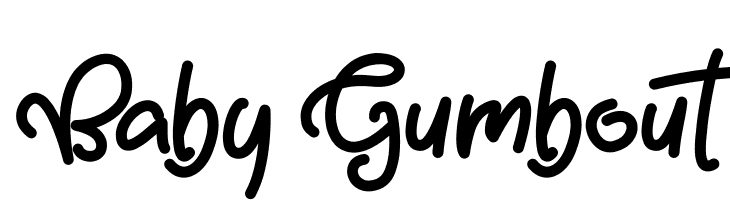
( London's Letters - www.londonsletters.com/ )
A whimsical decorative font with pony illustrations embedded in each letter.
( London's Letters - www.londonsletters.com/ )
A whimsical font with letters integrated into baby pram designs.
( Nght's Place - www.crosswinds.net/~nghtmvs/font/fonts1.html )
A decorative font with characters embedded in grand piano silhouettes, ideal for music-themed designs.
( Fonts by Brixdee )
A playful, stitched-style font with bold, rounded characters and a dotted pattern.
( Fonts by Royaltype )
A playful, bold font with rounded, thick strokes and a hand-drawn feel.
( Fonts by Khurasan )
A bold, jagged font with a playful and energetic style.
( Fonts by Khurasan )
A playful, hand-drawn font with rounded edges and a whimsical style.
( Fonts by Khurasan )
A playful, hand-drawn font with bold, rounded characters and a whimsical style.
( Fonts by Bangkit Tri Setiadi )
A playful, bold, and rounded font with a hand-drawn, whimsical style.
( Fonts by Pria Admaja )
A playful, bold font with rounded, hand-drawn characters.
( Fonts by DumadiStyle )
A playful, segmented font with a whimsical, airy design.
( Fonts by DumadiStyle )
A playful, balloon-like font with rounded, bold characters.
( Fonts by Tigadestd )
A playful, bold font with rounded, thick strokes and a whimsical, friendly appearance.
( Fonts by HansCo )
A playful and whimsical script font with decorative swirls and interconnected letters.
( Fonts by Kong Font )
A dynamic and flowing italic font with elegant cursive letterforms.
( Fonts by Kong Font )
A playful and whimsical font with elegant loops and swirls.
( Fonts by Savira Faeyza Art )
A bold, playful font with rounded, chunky letters and a whimsical style.
( Fonts by MJB Letters )
A playful, handwritten font with bold, rounded characters and a lively style.
( Fonts by Zamroni Hamzah )
A bold, playful font with a slight italic slant and rounded characters.
( Fonts by Sulthanstudio )
A playful, hand-drawn font with rounded edges and a bubble-like appearance.
( Fonts by Balibilly Design )
A bold, playful font with rounded, hand-drawn characters.
( Fonts by K_IN Studio )
A playful, rounded font with smooth curves and a friendly, approachable style.
An elegant, cursive font with smooth, flowing strokes and a handwritten appearance.